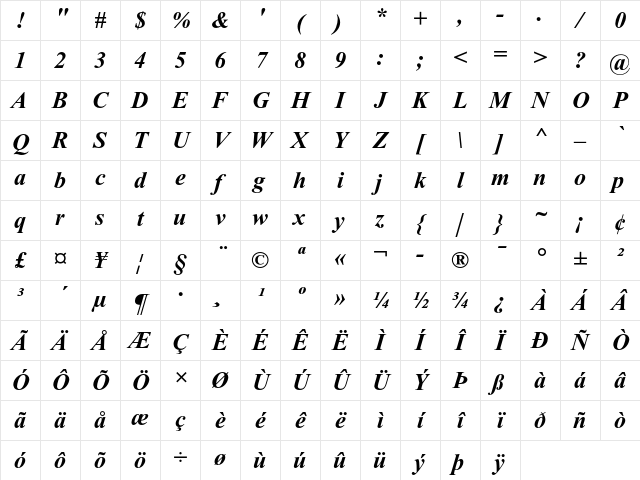
Times New Roman PS MT Bold Italic
Complete Times New Roman PS MT Bold Italic glyph index. Displaying only characters natively supported by Times New Roman PS MT Bold Italic font.
Design Context for Times New Roman PS MT
Times New Roman PS MT is a composed and adaptable typeface that performs quietly and consistently across a wide range of design contexts. The slanted form adds forward momentum and visual energy. Its bold stroke weight gives it real presence on the page.
Pro Tip: Use Times New Roman PS MT for emphasis, pull quotes, and subheadings where its slanted energy can add rhythm to the layout.